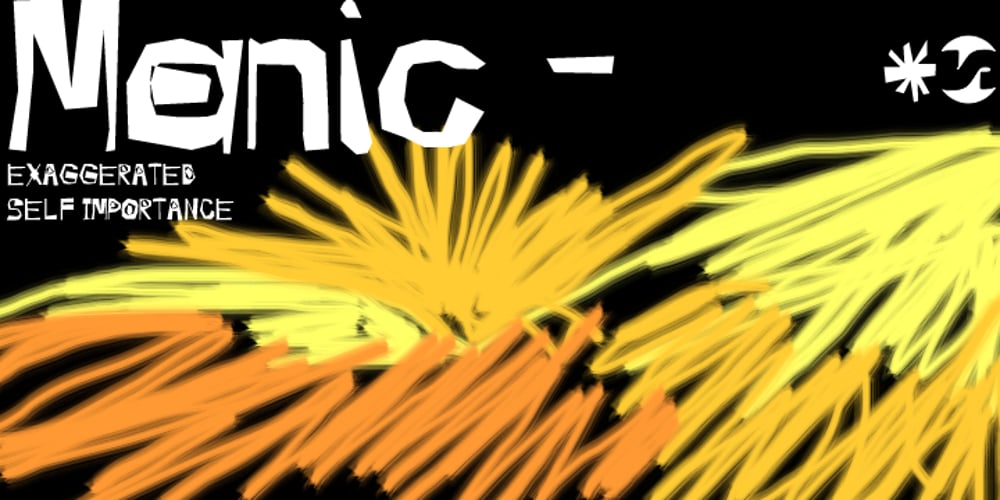
Manic Font Family was designed by Fran Board and published by Siren Fonts. Manic contains 1 styles and family package options. Manic is simply a fun font which plays around with line width, negative space and quirkiness, and is made up entirely of straight lines. The font has a playful feel to it and is particularly good for large displays/headlines.